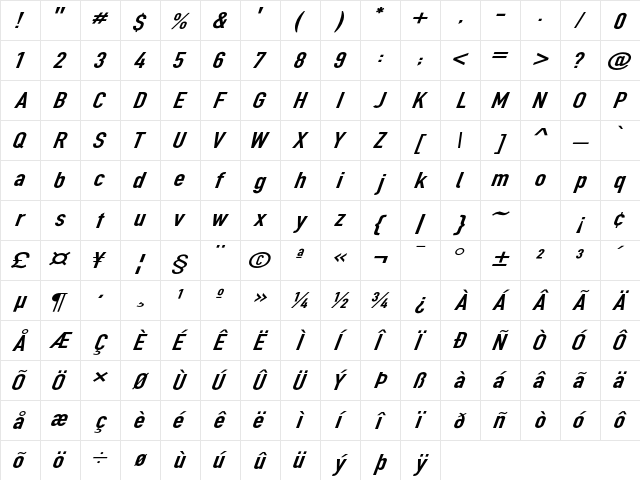
Din Kursivschrift Breit
Design Context for Din Kursivschrift Typeface
Din Kursivschrift takes a measured approach to typography — its balanced proportions and neutral character make it a reliable workhorse for both digital and print work. The slanted form adds forward momentum and visual energy.
Pro Tip: Try Din Kursivschrift for annotation and caption copy alongside an upright companion — the contrast in angle creates a dynamic but ordered typographic system.